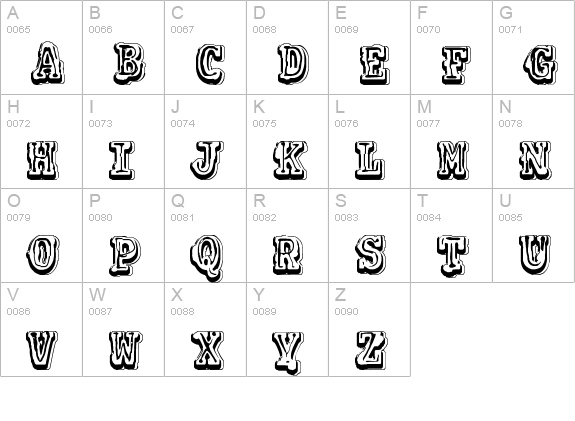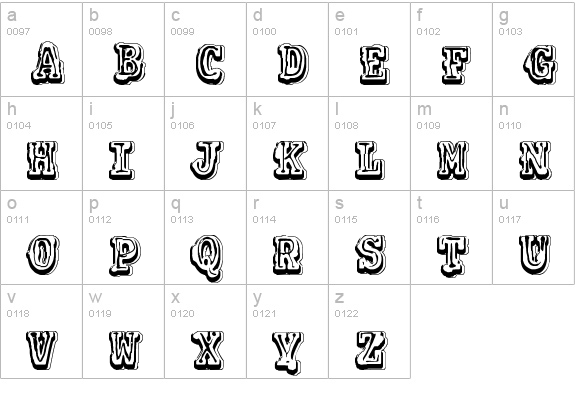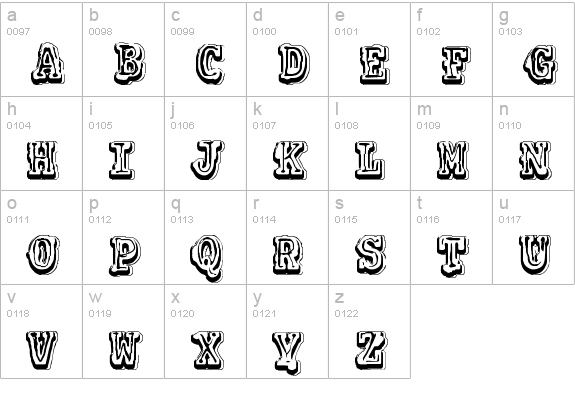
VTKS COLAGEM Font Details
VTKS COLAGEM font is a unique and artistic typeface that exudes creativity and originality. With its playful and hand-drawn style, this font adds a touch of whimsy to any design project. The irregular strokes and uneven lines give VTKS COLAGEM a handmade feel that is perfect for adding a personal touch to your work. Best of all, VTKS COLAGEM font is completely free to download at FontsMarket.com. Whether you're working on a poster, logo, or social media graphic, this font is sure to make a statement and set your designs apart. Embrace the charm of VTKS COLAGEM and let your creativity shine with this one-of-a-kind typeface.